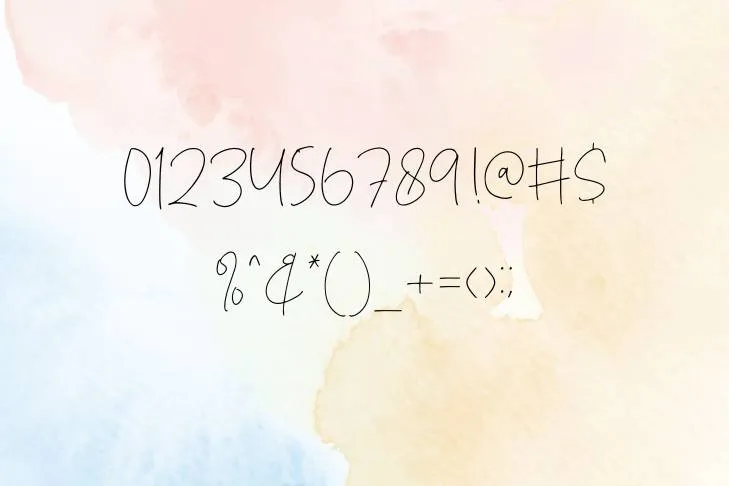
It seems very exciting to me when I do deep research and also share with you about Script or Calligraphy typefaces because of the interesting qualities and attributes it entail. The Amichan Font showcases a kind of appearance that depicts as if the characters are elegantly drawn with the brush or an ink-pen is used in their creation. These typefaces are coherent and seamlessly delicate and sophisticated.
This exquisitely remarkable typeface is carefully knocked off by a renowned font foundry named “SalamahType Foundry” and this font foundry has devised many other typefaces as well. This stunning monoline typeface is resourceful for lots of purposes like designing invitation cards for weddings, engagements, birthdays, or any other formal events.
Moreover, this exceptional and sensational typeface is perfect for creating brand identities, social media posts, product descriptions, and logo designs for fashion or vehicle brands, or to generate astounding layouts for flyers, brochures, banners, and posters; hence, its designs are not limited to any extent. Its delicacy and simplicity necessitate the demand of many projects and it imparts a flawless impression.
Key Features of Amichan Font
This multifaceted typeface is becoming an ultimate demand of graphic designers because of its impeccable features. It provides an entire package of characters required to create an exceptional project. This typeface also looks very similar to the distant stroke font.
It is composed of a stylish set of ligatures, stylistic alternates along with multilingual character support, and a unique set of glyphs that comprises upper and lowercase letters, numerals, symbols, and punctuations. It also includes PUA-encoded letters like swashes and swirls which maximize the attraction of this typeface.
Characters and Numbers Visualization of Amichan Font
Name | Amichan Font |
Designer | Salamahtype |
Who designed Amichan Font?
This exquisitely remarkable typeface is carefully knocked off by a renowned font foundry named “SalamahType Foundry” and this font foundry has devised many other typefaces as well. it is known as the Calligraphy text style.